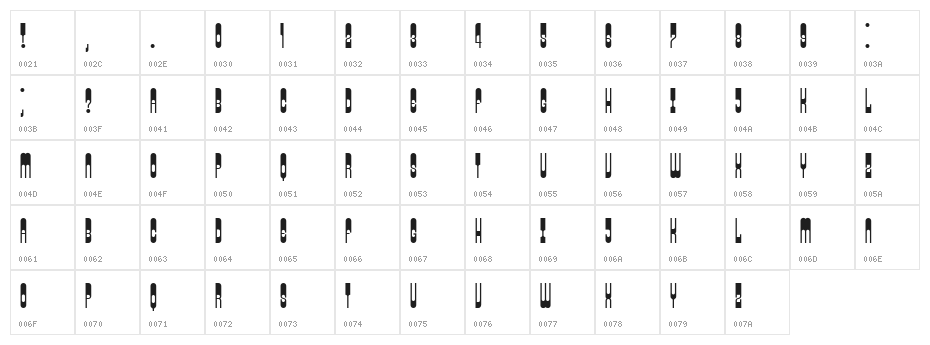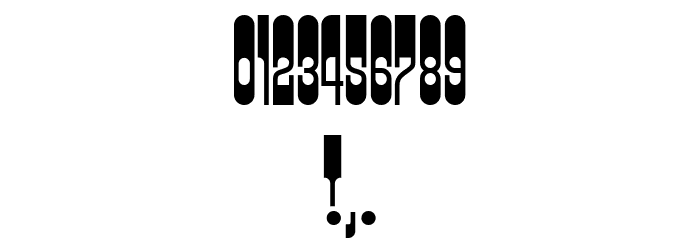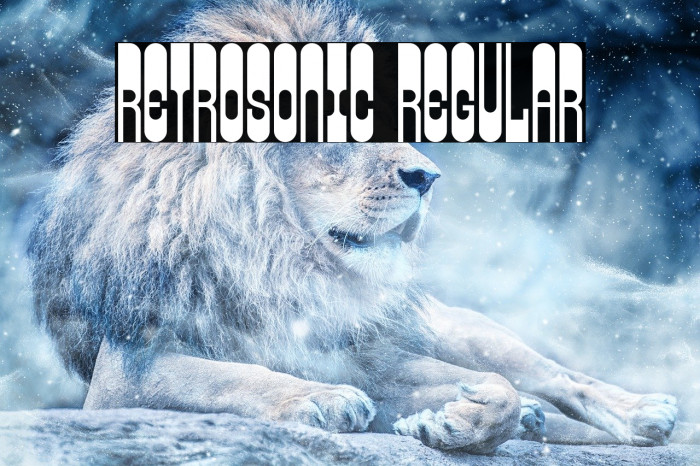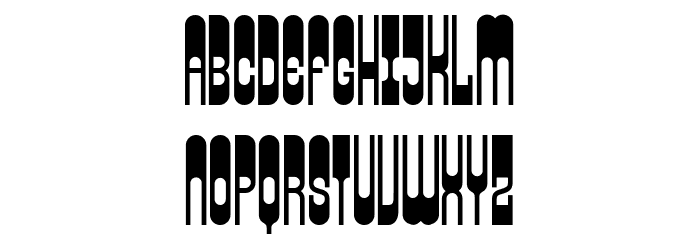
Retrosonic Regular Font
Retrosonic Regular Description
This font features a bold, geometric style with a distinctly retro aesthetic. The characters are tall and narrow, with a unique combination of rounded and angular elements that give it a futuristic yet vintage feel. The uppercase letters are particularly striking, with their elongated forms and consistent stroke width. The lowercase letters maintain the same stylistic elements, ensuring a cohesive look across different text cases. Numbers and special characters are designed to match the overall style, making this font versatile for various design needs.
| Overall Style | Retro, Futuristic |
| Proposed Projects | Ideal for vintage-themed posters, album covers, branding for retro products, and any project seeking a nostalgic yet modern look. |